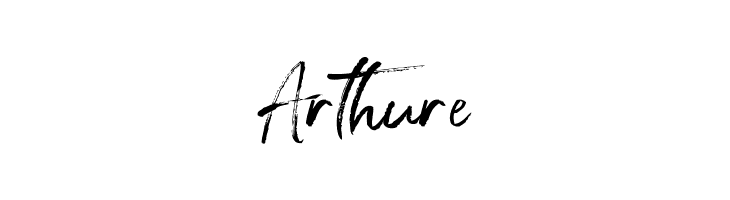
A bold, brush-style handwritten font with dynamic strokes and a casual elegance.
An ornate and decorative font with intricate swirls and embellishments.
A playful serif font with a hand-drawn, whimsical touch.
A modern, abstract font with thin, intersecting lines forming geometric characters.
A playful, hand-drawn font with quirky, tall letters and whimsical symbols.
A bold, distressed font with a gritty, urban street art style.
A modern, elegant script font with flowing, cursive characters.
A cursive, handwritten font with elegant, flowing strokes and dynamic contrast.
A modern serif font with elegant curves and balanced proportions.